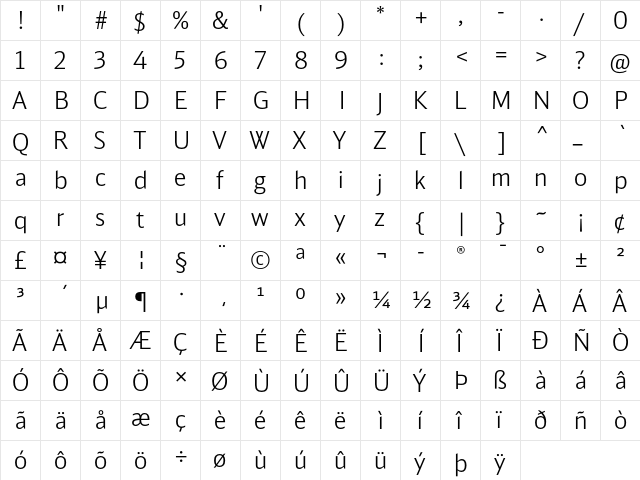
DB Head Light
Design Context for DB Head Typeface
DB Head takes a measured approach to typography — its balanced proportions and neutral character make it a reliable workhorse for both digital and print work. Its slender proportions lend an understated elegance to any composition.
Pro Tip: Pair DB Head with a font of contrasting weight or personality to build a more expressive typographic hierarchy.